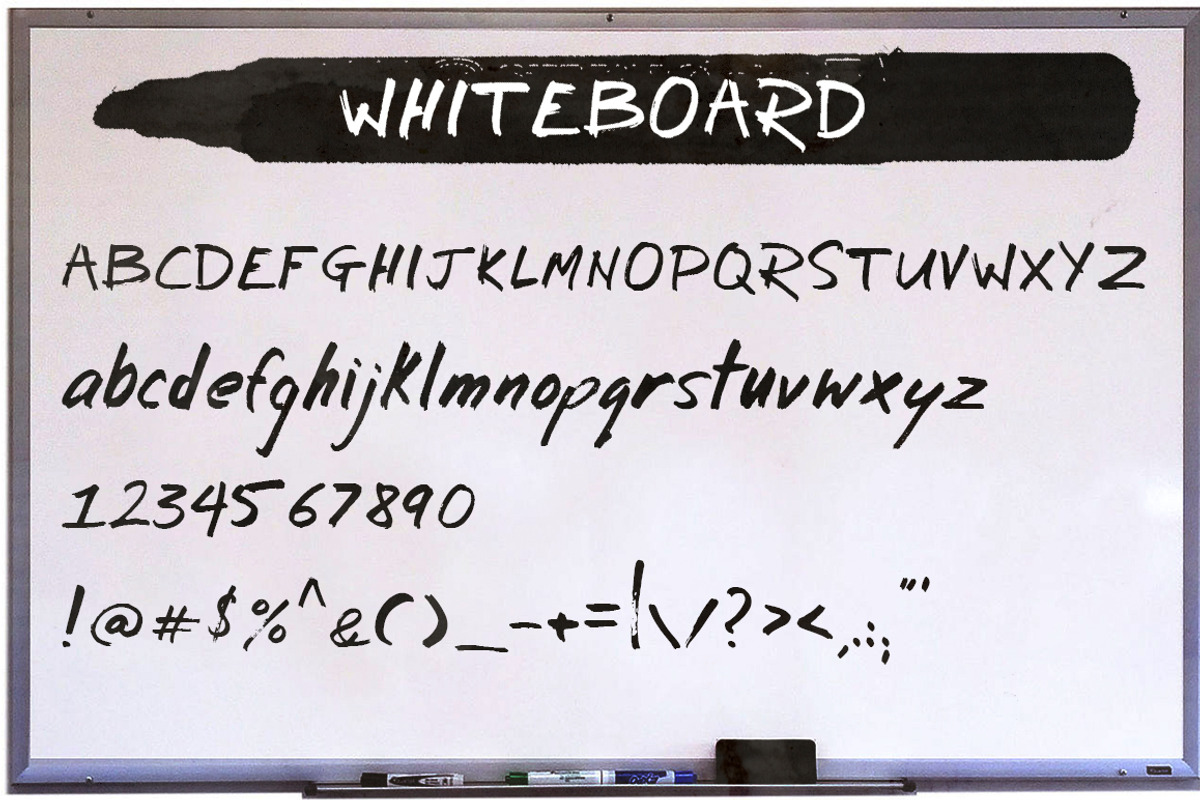
Whiteboard Font
Whiteboard Font by Mara's Media is a font selected for branding, posters, packaging, typography.
Why Whiteboard Font is worth a look
Whiteboard Font by Mara's Media fits naturally into Branding, posters, packaging, typography.